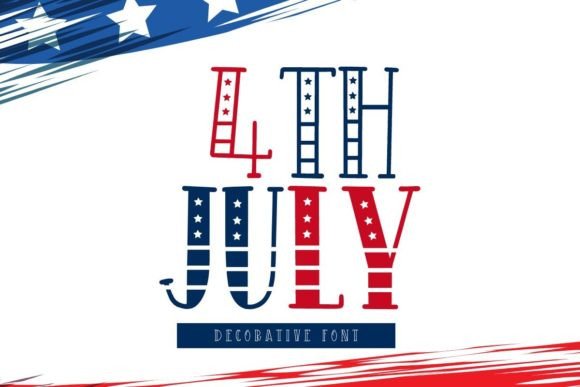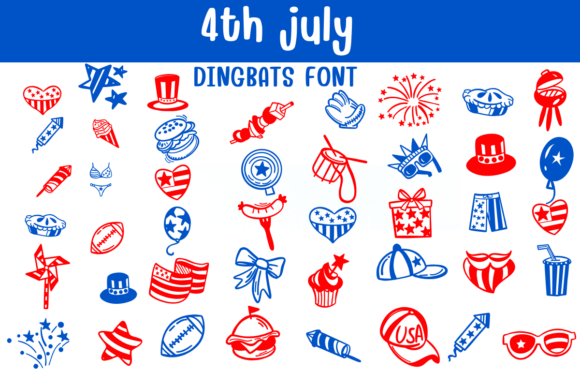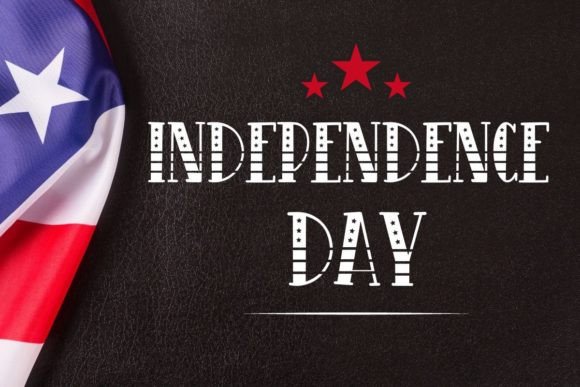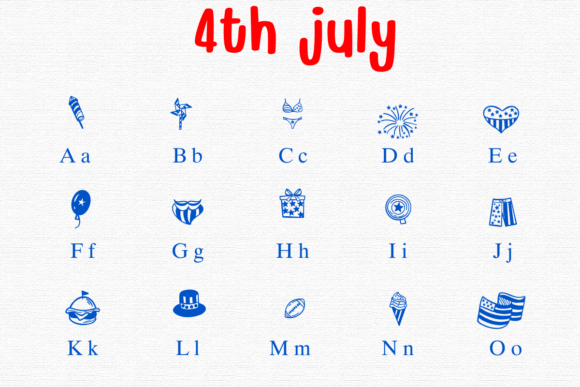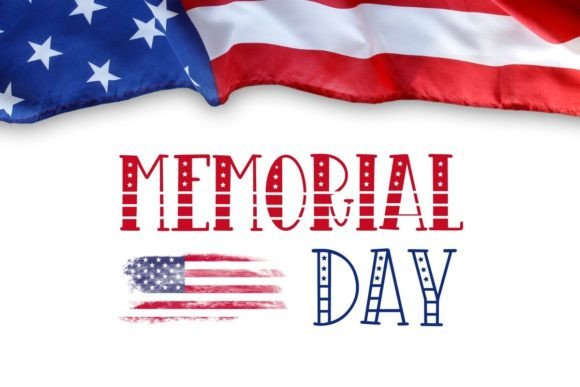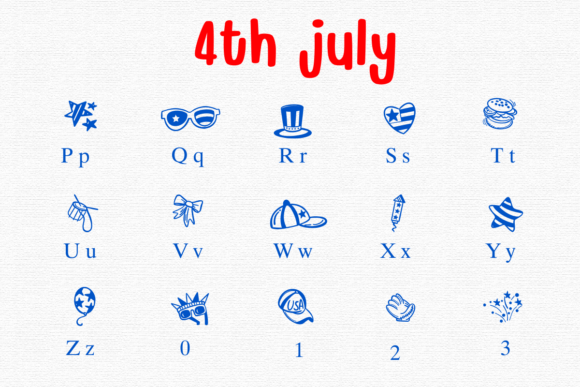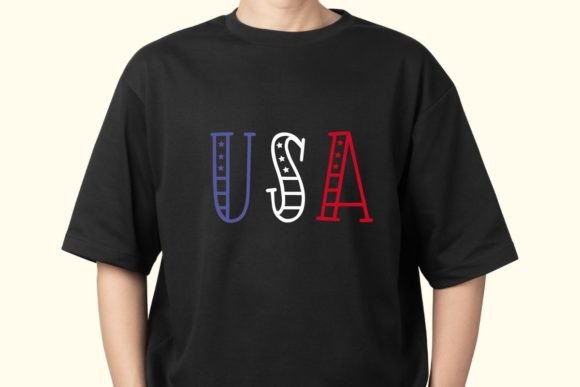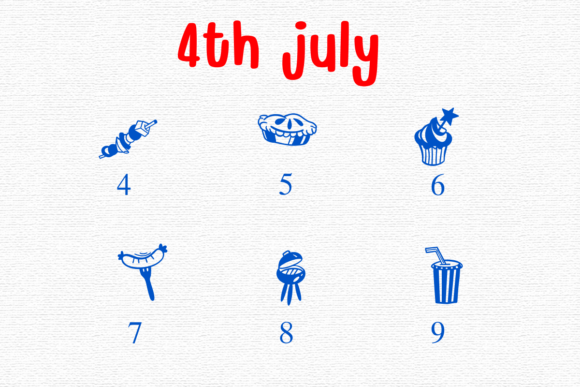
About the 4th July Font
Experience the unique personality of 4th July Font, a font designed for impact. 4th July is a fun and cute decorative font. This font uses stars to decorate the letters to match the 4th of July celebration. This font has a lovely quirky vibe and will help you create cool designs for Independence Day or other patriotic events.
Its playful, slightly quirky personality makes it ideal for headlines, short slogans, and eye-catching elements in posters or social media graphics related to celebratory events. It works well for branding projects needing a fun, approachable feel, particularly for children’s products or brands focusing on lightheartedness. However, its decorative nature makes it less suitable for body text or UI elements where readability is paramount.
Consider pairing 4th July Font with a clean sans-serif like Open Sans for a balanced contrast, or a classic serif like Garamond for a more refined feel. A simple geometric sans-serif would also provide a modern counterpoint to the font’s playful energy.
Avoid using it for lengthy text blocks or situations requiring high legibility. Its charm lies in its decorative elements, best used sparingly for impactful visual accents.
4th July Font Usage Examples
4th July Font Example